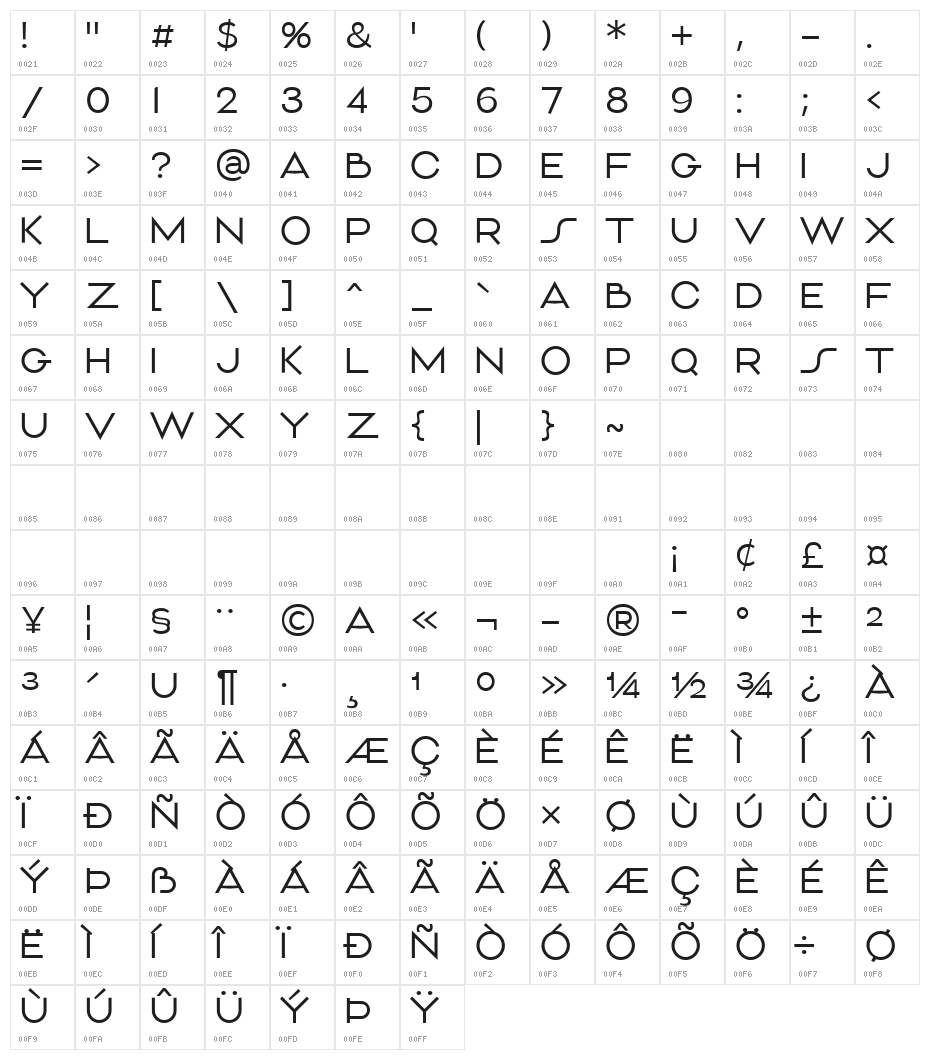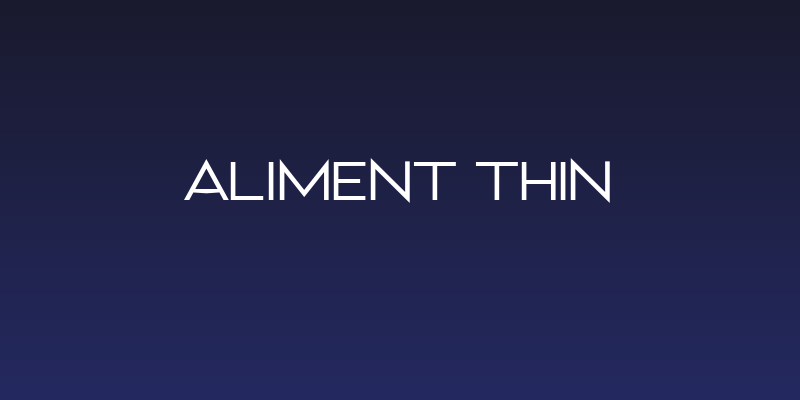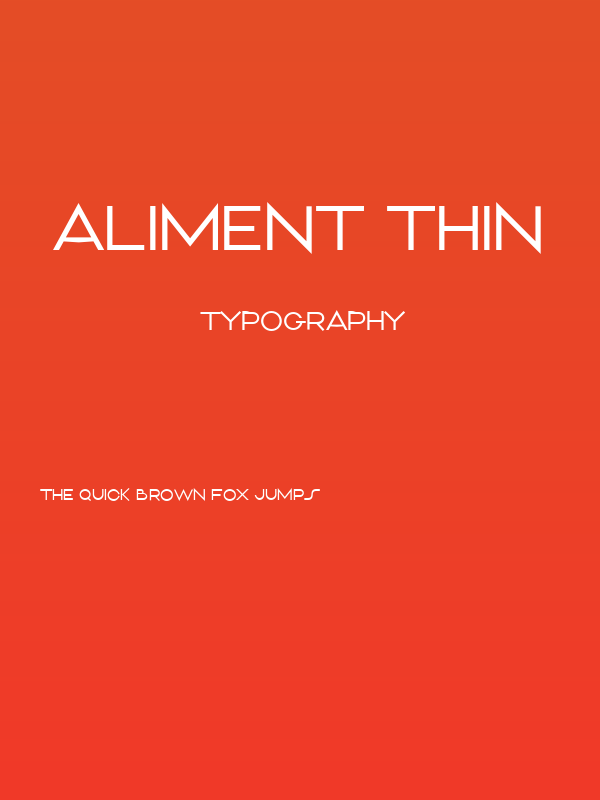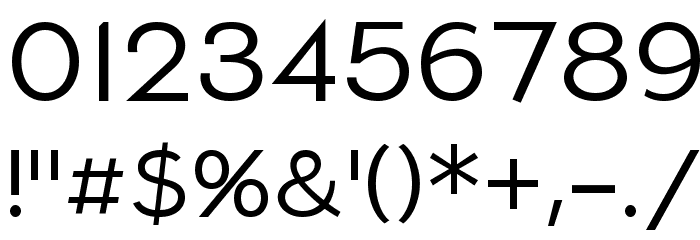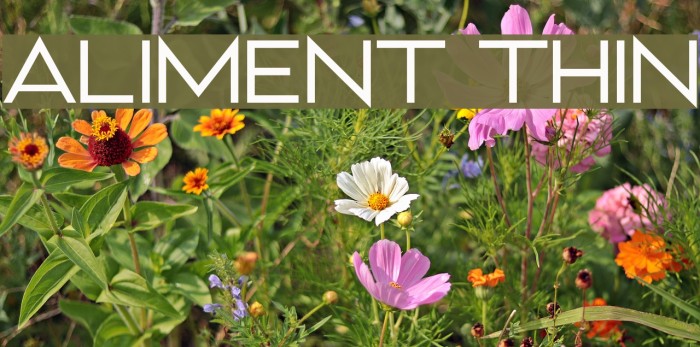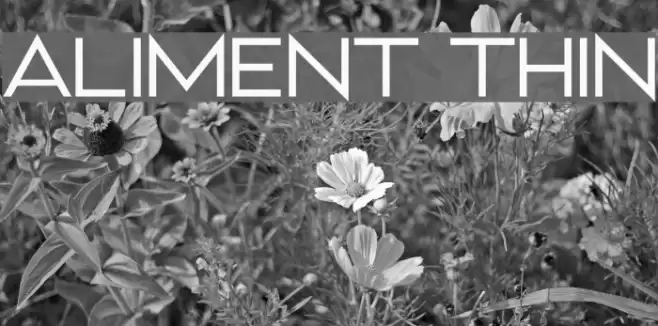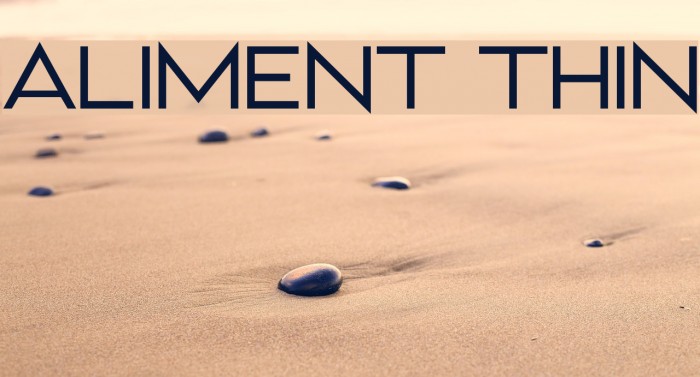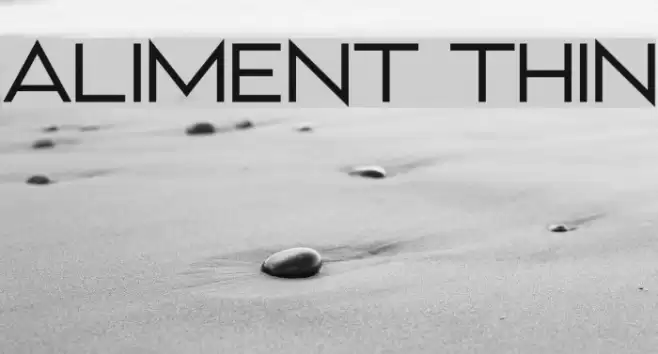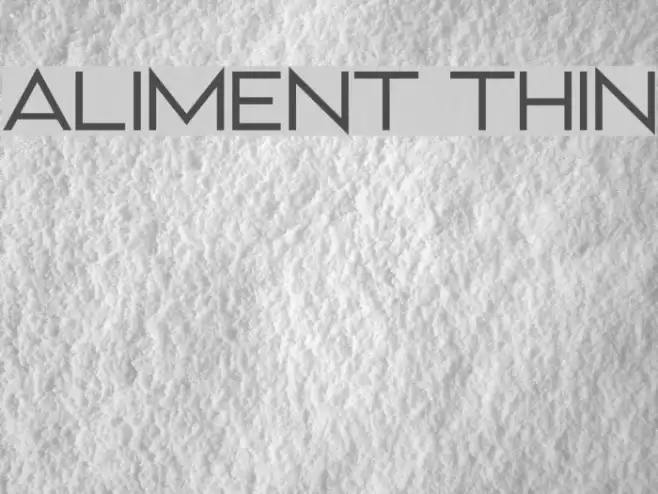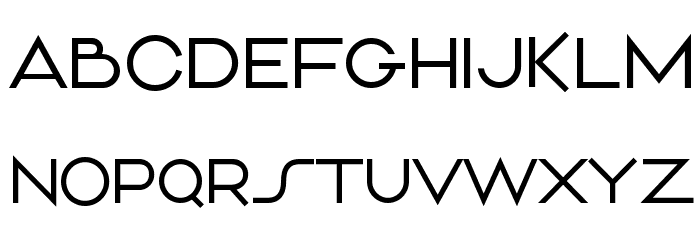
Aliment Thin Font
Aliment Thin Description
This font features a sleek, modern design with clean lines and a minimalist aesthetic. The characters are crafted with precision, showcasing a geometric structure that emphasizes clarity and simplicity. The uppercase and lowercase letters maintain a consistent style, with uniform stroke widths that contribute to a harmonious appearance. The numerals are equally refined, offering a seamless integration with the alphabetic characters. Special characters are designed with the same attention to detail, ensuring versatility across various applications. This font's thin weight and open forms make it ideal for contemporary design projects where readability and elegance are paramount.
| Proposed Projects | Ideal for branding, editorial design, digital interfaces, and minimalist posters. |